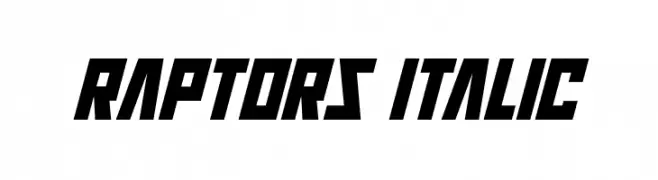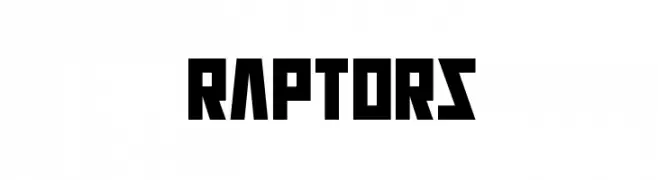
( Darrell Flood )
A bold, angular font with sharp edges and a modern aesthetic.
( Darrell Flood )
A bold, italic, and angular font with a futuristic look.